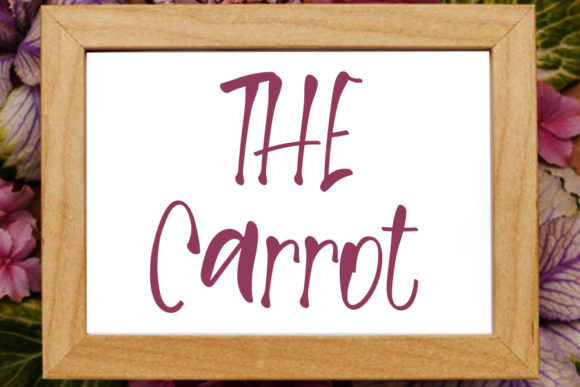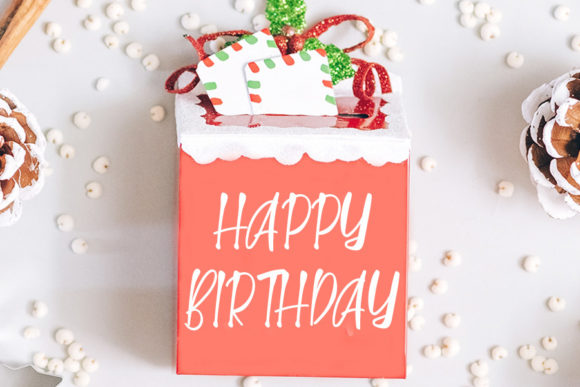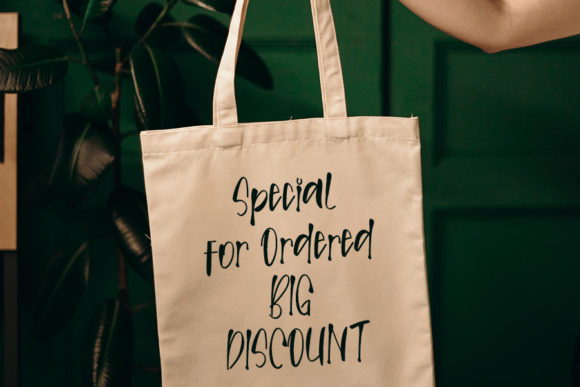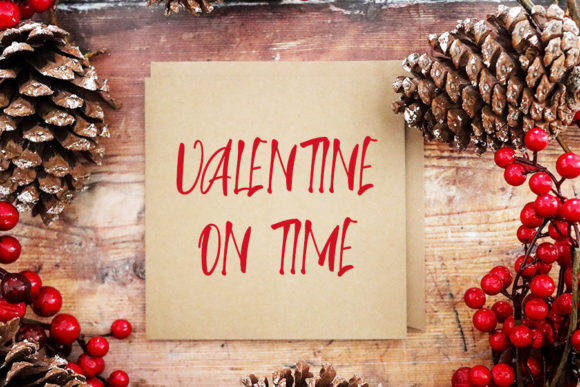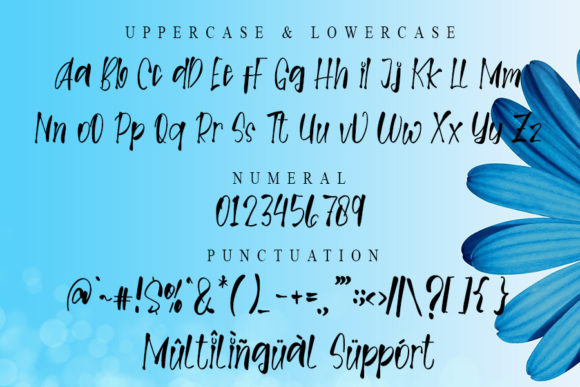
Introduction to Lovely Rabbit Font
Lovely Rabbit is a fun and quirky display font.
This font is the ideal font for adding an adventurous and authentic feel to your next design idea .
Key Features of Lovely Rabbit Font
Why Choose Lovely Rabbit Font?
Lovely Rabbit Font offers exceptional quality and versatility, making it a valuable addition to your design toolkit. Whether you’re creating for personal projects or commercial use, Lovely Rabbit Font delivers professional results.